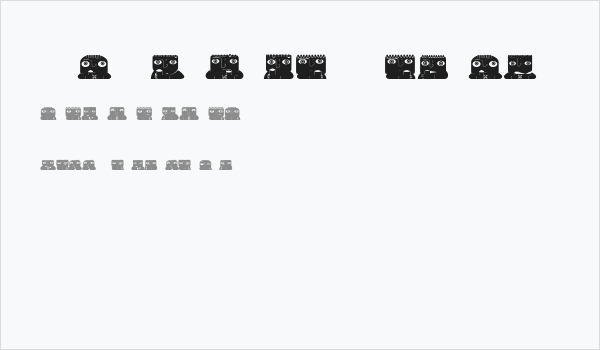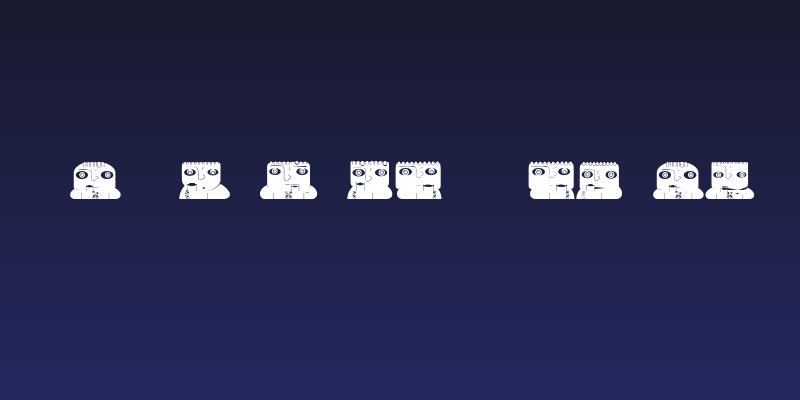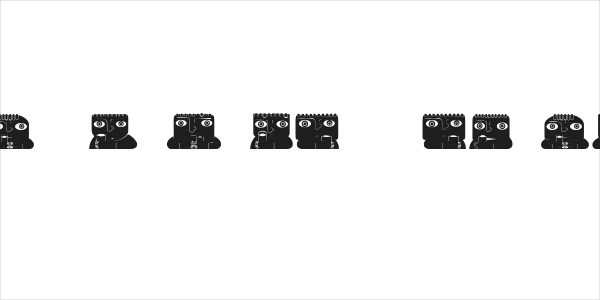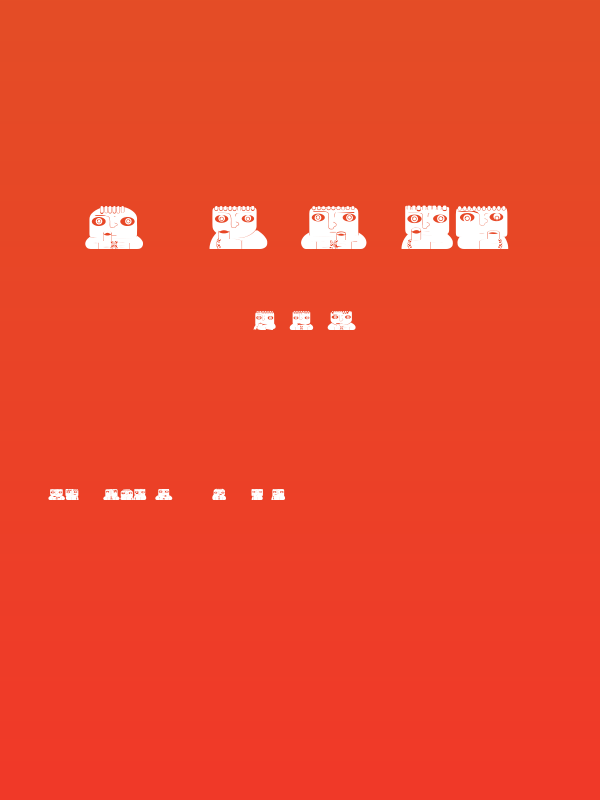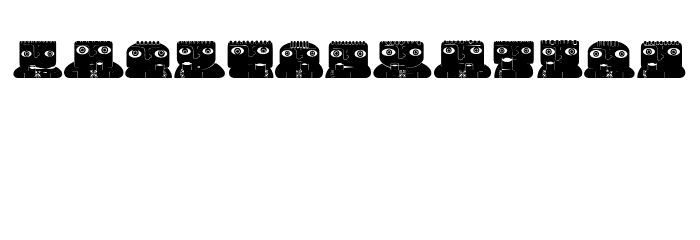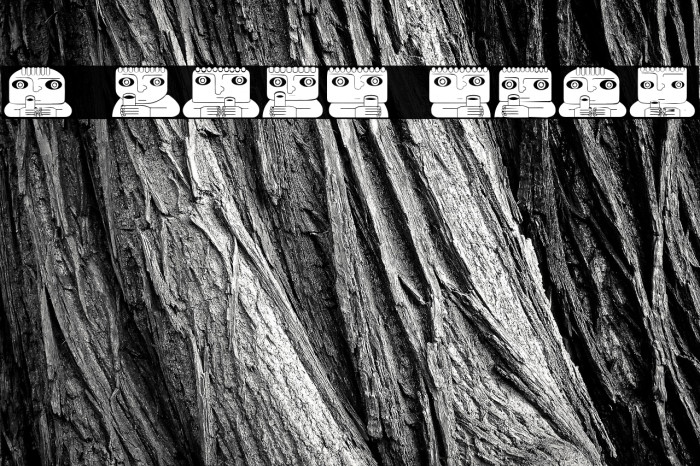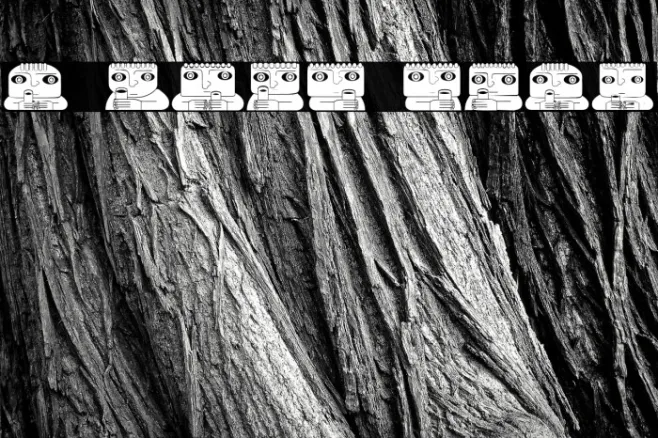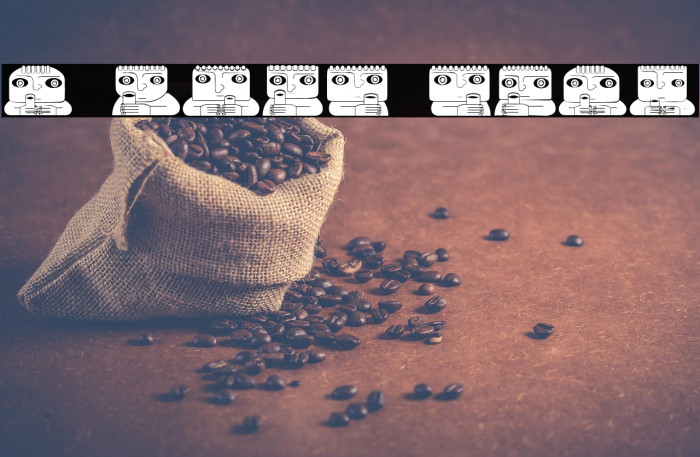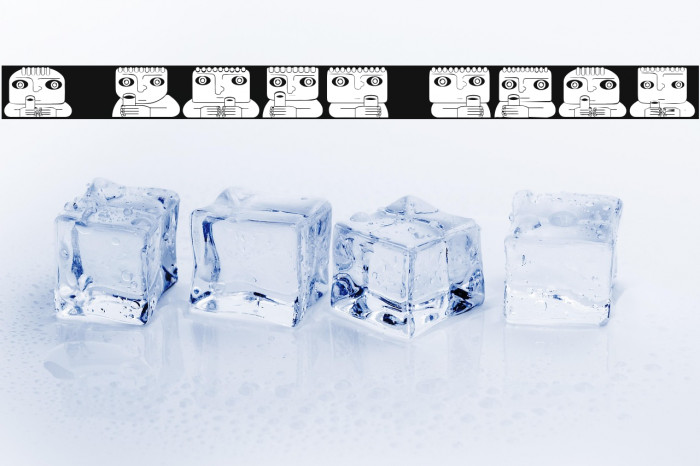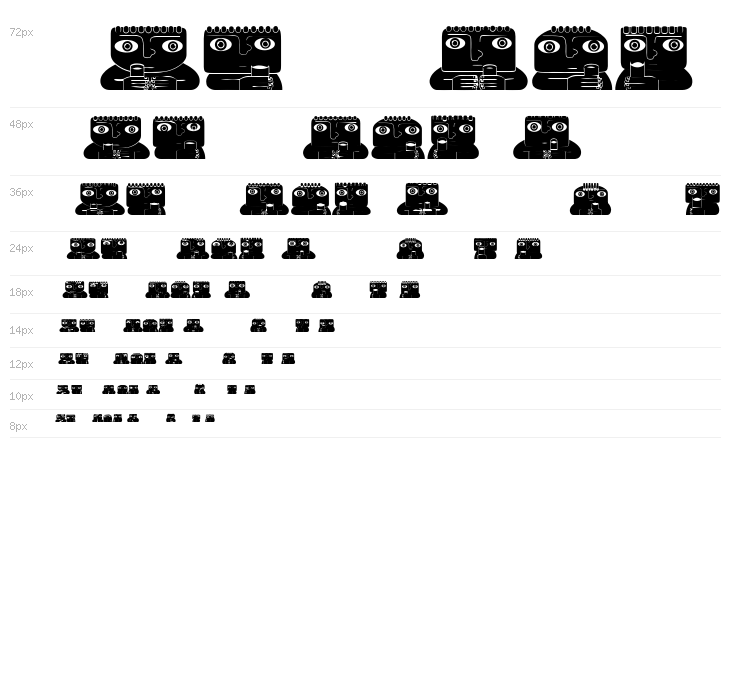
Solo Drinker Regular Font
Solo Drinker Regular Description
This font features a unique and playful design where each character is represented by a stylized, cartoonish figure. The characters are bold and have a strong visual presence, making them ideal for creative and unconventional projects. The figures are consistent in style, with each letter and number maintaining a uniform height and width, contributing to a cohesive look. The font's whimsical nature makes it stand out, offering a fun and engaging way to present text. The characters are detailed, with facial expressions and body postures that add personality and charm.
| Use Case | Logos, Posters, Creative Projects |
| Proposed Projects | Ideal for children's books, playful branding, creative posters, and unique invitations. |